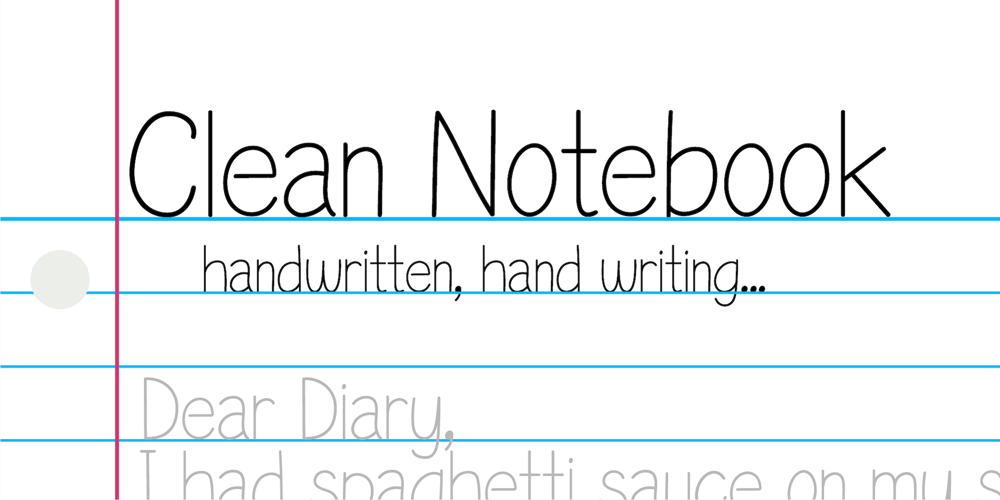
Clean Notes
Clean Notes font
Clean Notes Font Family was designed by Jess J and published by Type Avenue. Clean Notes contains 1 styles and family package options. Write beautifully and neatly with the Clean Notes font. It gives you the option to write beautiful and legible notes while maintaining a classic handwritten look. It’s perfect for use in any note-taking app or computer. Think about using this font in a website or scrapbook to inject personality into any project.